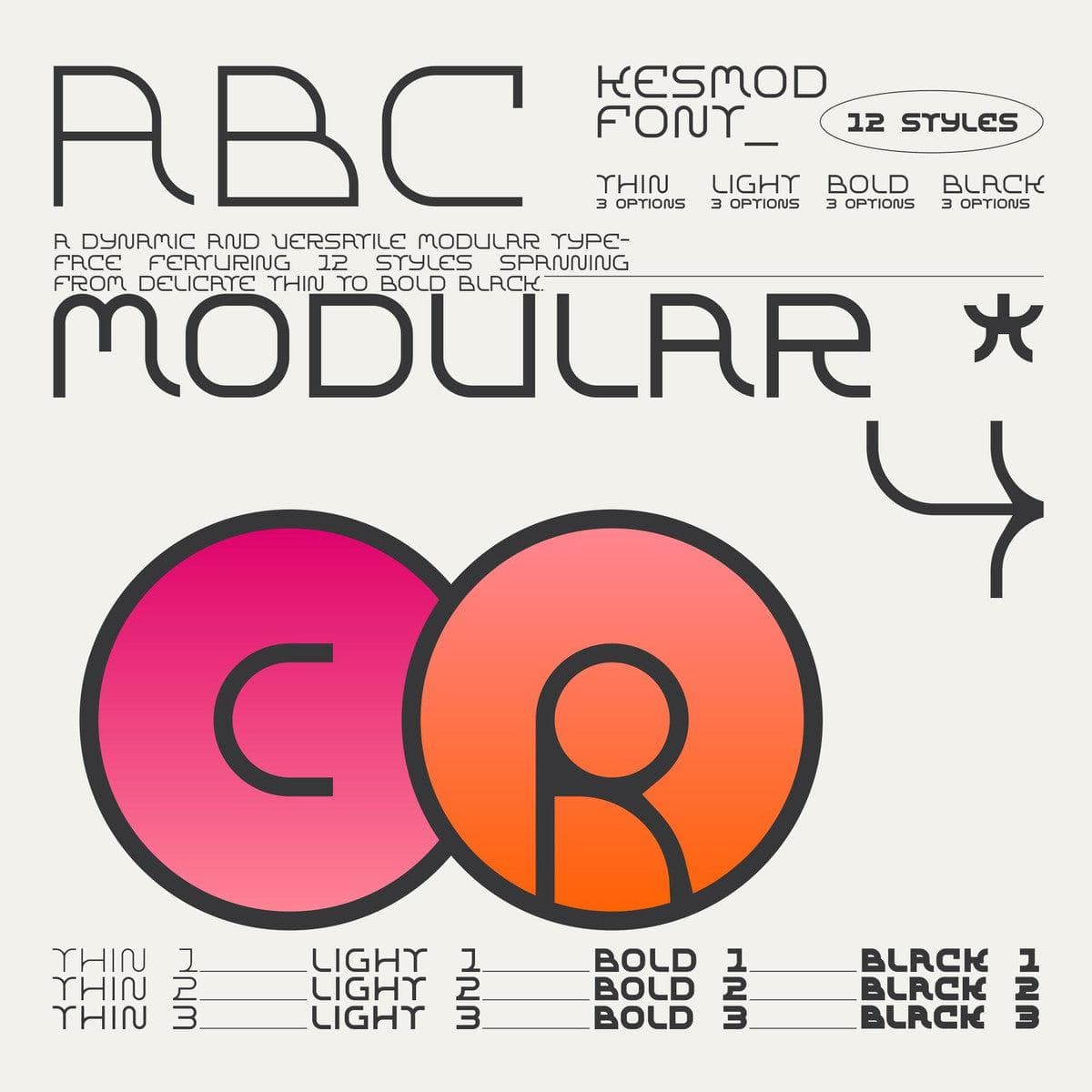
<p>Kesmod is a clean display typeface that excels in urban posters, music covers, clothing print design, impactful headlines, large page headers, billboards, signs, bold headlines, modern acid typography, Brutal Bold design, and much more. This modular Sans Serif typeface features 12 styles spanning from delicate thin to bold black, which really can help in modern experimental design.<br><strong>✦ You will receive: ✦</strong></p> <ul> <li>12+1 OTF files</li> <li>12+1 TTF files</li> <li>12+1 WOFF (WebFont) files</li> <li>PDF with preview. </li> <li>including Uppercase Alphabet, numbers, punctuation, and common additional glyphs.</li> </ul>